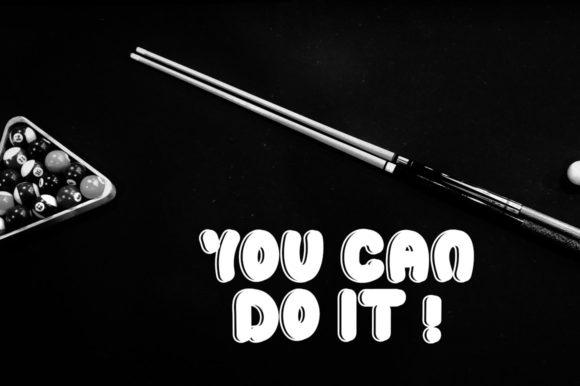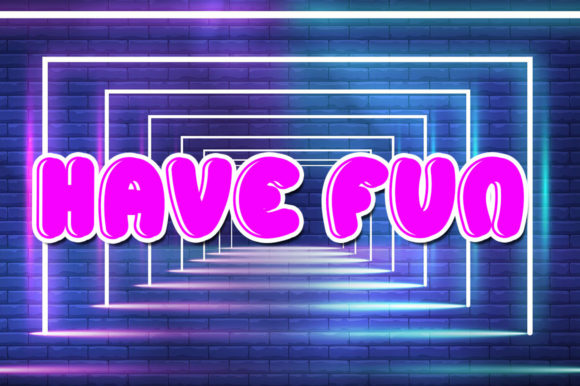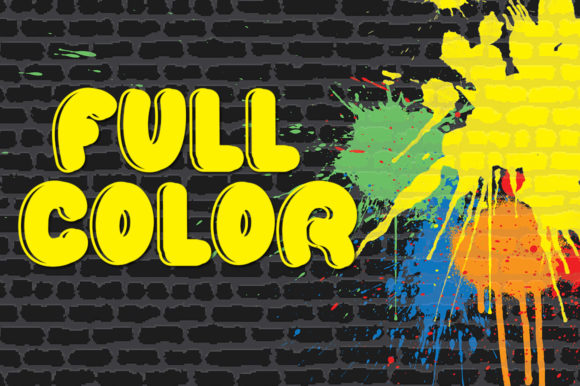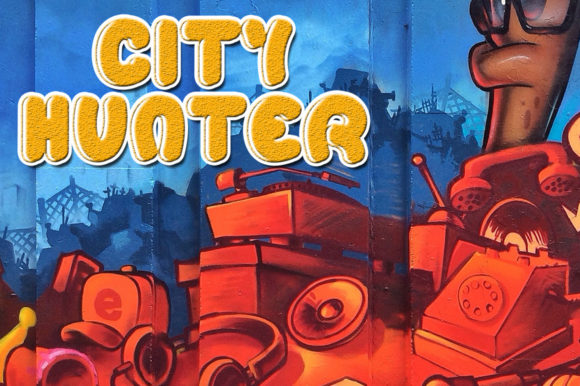
Introduction to Eight Ball Font
Eight Ball is a bouncy and unique display font.
It has chunky characters and a playful feel that makes it great for childrenโ€™s projects, games, kidsโ€™ magazines, books, and more .